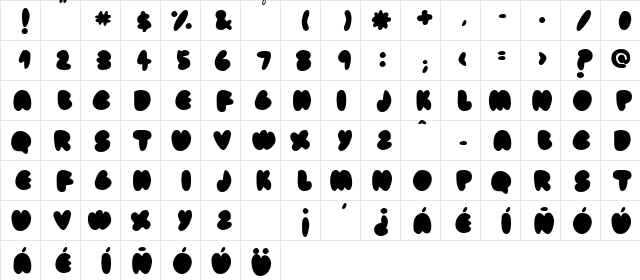
fat ass filled Regular Font Preview
fat ass filled Regular
fat ass filled Regular Font Details
Design Context for fat ass filled Typeface
fat ass filled is a composed and adaptable typeface that performs quietly and consistently across a wide range of design contexts.